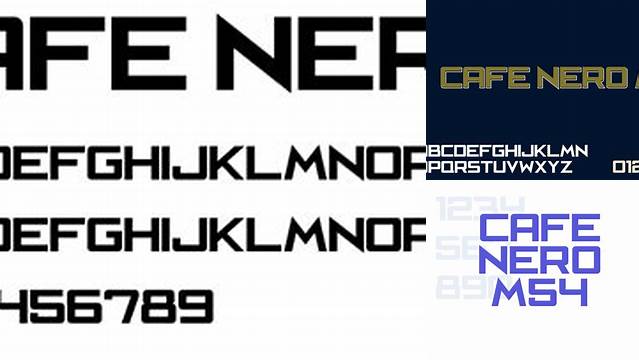
If you're on the hunt for the Cafe Nero M54 font, you've come to the right place! This font, known for its distinctive and elegant appearance, is a favorite among designers and brand enthusiasts alike. In this article, we'll dive deep into everything you need to know about the Cafe Nero M54 font, including its history, characteristics, and, most importantly, where you can find it for free. Guys, whether you're working on a branding project, designing a website, or just a font aficionado, understanding the nuances of the Cafe Nero M54 font can significantly enhance your creative toolkit. So, let’s get started and explore this fantastic typeface!
The Allure of the Cafe Nero M54 Font
The Cafe Nero M54 font isn't just another typeface; it's a visual representation of sophistication and style. Its clean lines and balanced letterforms make it incredibly versatile, suitable for a wide range of applications. Think about it – from logos and headlines to body text and promotional materials, this font can elevate your design with its unique charm. The appeal of the Cafe Nero M54 font lies in its ability to convey both modernity and classic elegance, a rare combination that makes it a staple in the design world. For businesses, using this font can evoke a sense of trust and quality, while for personal projects, it adds a touch of professionalism and flair. It's no wonder that so many designers and brands are eager to get their hands on this font. The Cafe Nero M54’s distinct character sets it apart from more generic typefaces, offering a level of visual interest that captures attention and maintains readability. Whether you’re creating a minimalist design or something more elaborate, this font can adapt to your needs, making it a valuable asset in any designer’s collection. The subtle curves and sharp angles work together harmoniously, giving the font a balanced and polished look. Furthermore, its legibility across different sizes and media formats ensures that your message is always clear and impactful. This makes the font ideal for both print and digital applications, providing consistency in branding and design. Its widespread popularity is a testament to its timeless appeal and practical usability, making it a go-to choice for projects that require a touch of class and sophistication. So, if you're aiming to add a refined touch to your designs, the Cafe Nero M54 font is definitely worth considering.
Why is Cafe Nero M54 Font So Popular?
The popularity of the Cafe Nero M54 font stems from its versatility and timeless design. It's a font that seamlessly blends modern aesthetics with classic elegance, making it a favorite across various industries. One of the key reasons for its popularity is its legibility. The clean and well-defined characters ensure that the font remains readable even at smaller sizes, which is crucial for body text and detailed designs. This makes it an excellent choice for websites, print materials, and mobile applications. Another factor contributing to its popularity is its aesthetic appeal. The font has a sophisticated look that adds a touch of class to any project. Whether you're designing a logo, a brochure, or a website header, the Cafe Nero M54 font can elevate the overall visual appeal. Its balanced letterforms and subtle details create a harmonious visual experience, making it pleasing to the eye. Moreover, the font's adaptability makes it suitable for a wide range of applications. It works well in both formal and informal contexts, making it a versatile tool for designers. This flexibility means that you can use the font for everything from corporate branding to creative personal projects. The Cafe Nero M54 font also stands out because of its distinct personality. It has a unique character that sets it apart from more generic fonts, allowing your designs to stand out and make a lasting impression. The font's subtle quirks and stylish details add depth and interest, making it a memorable choice for branding and marketing materials. In the digital age, where visual communication is paramount, the Cafe Nero M54 font offers a reliable and attractive option for conveying messages effectively. Its consistent performance across different platforms and devices ensures that your designs maintain their integrity and impact. Overall, the Cafe Nero M54 font's blend of readability, aesthetic appeal, versatility, and distinct personality has cemented its place as a popular choice among designers and businesses alike.
Finding Alternatives to Cafe Nero M54 Font
If you're unable to find the Cafe Nero M54 font for free or if its licensing doesn't suit your needs, there are plenty of excellent alternatives available. Identifying fonts with similar characteristics can help you achieve a comparable aesthetic in your designs. One great approach is to look for fonts within the same font family or classification. For example, if Cafe Nero M54 is a sans-serif font with a modern feel, exploring other sans-serif fonts with clean lines and a balanced structure can yield promising results. Fonts like Helvetica, Arial, and Open Sans are classic sans-serif options that offer versatility and readability. While they may not be exact matches, they share a similar clean and modern aesthetic that can work well in a variety of contexts. Another strategy is to use online font identification tools. Websites like WhatTheFont and Font Identifier allow you to upload an image of the font you're trying to identify, and they will suggest possible matches or similar fonts. This can be a quick and easy way to discover alternatives that you might not have considered otherwise. Exploring font pairing resources can also be helpful. Many design blogs and websites offer guides on pairing different fonts together, which can give you ideas for complementary typefaces that work well with the style you're aiming for. Pairing a similar sans-serif font with a contrasting serif or script font can add visual interest to your designs while maintaining a cohesive look. Additionally, consider the specific characteristics of Cafe Nero M54 that you find appealing. Is it the clean lines, the letter spacing, or the overall elegance? By identifying these key features, you can narrow down your search for alternatives and find fonts that capture the same essence. Remember to always check the licensing terms for any font you download, whether it's a free or commercial font. Ensuring that you have the appropriate license for your intended use is crucial for avoiding legal issues. By exploring these strategies, you can discover a range of alternatives to the Cafe Nero M54 font that will enhance your design projects and meet your specific needs.
Similar Fonts and How to Identify Them
When searching for fonts similar to the Cafe Nero M54 font, it's helpful to understand the characteristics that make it unique. Cafe Nero M54 is likely a sans-serif font with a modern and clean appearance. Identifying these key traits allows you to narrow down your search and find suitable alternatives. One effective method for finding similar fonts is to use online font identification tools. Websites like WhatTheFont, Fontspring Matcherator, and Identifont allow you to upload an image of the font or describe its characteristics, and they will suggest possible matches. These tools analyze the font's letterforms, spacing, and other attributes to provide a list of fonts with a similar style. WhatTheFont, for example, lets you upload an image of the text, and it will attempt to identify the font used. Fontspring Matcherator offers a more detailed search, allowing you to specify characteristics like serif vs. sans-serif, weight, and width. Identifont uses a questionnaire to guide you through the identification process, asking questions about the font's features to narrow down the options. Another approach is to explore font foundries and marketplaces that offer font filtering options. Websites like MyFonts and Adobe Fonts allow you to filter fonts by classification (e.g., sans-serif, serif, script), style (e.g., modern, classic, geometric), and other attributes. This can help you quickly browse through a large collection of fonts and identify those that match your desired criteria. When evaluating potential alternatives, pay attention to details like letter spacing, x-height, and overall proportions. These subtle differences can significantly impact the font's readability and aesthetic appeal. For instance, a font with a higher x-height may appear more legible at smaller sizes, while a font with wider letter spacing may create a more open and airy feel. Some popular fonts that share similarities with modern sans-serif typefaces include Helvetica, Arial, Open Sans, and Roboto. While these fonts may not be exact matches, they offer a similar clean and versatile aesthetic that can work well in a variety of design contexts. By using font identification tools, exploring font foundries, and paying attention to key font characteristics, you can effectively find alternatives to the Cafe Nero M54 font and achieve your desired design aesthetic. Remember to always check the licensing terms before using any font in your projects.